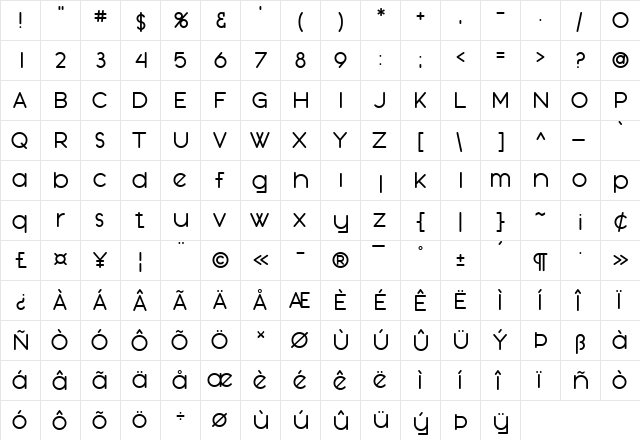
SF Orson Casual Medium Regular
| Designer | ShyFonts Type Foundry |
SF Orson Casual Medium takes a measured approach to typography — its balanced proportions and neutral character make it a reliable workhorse for both digital and print work.